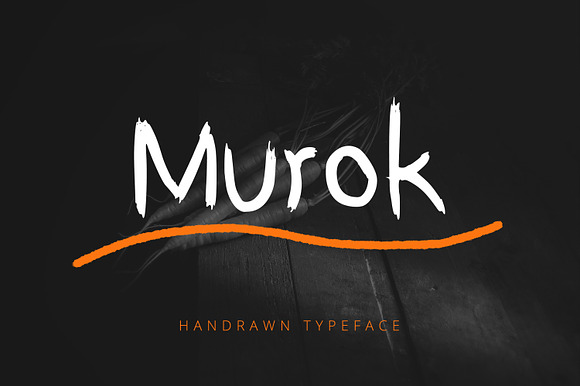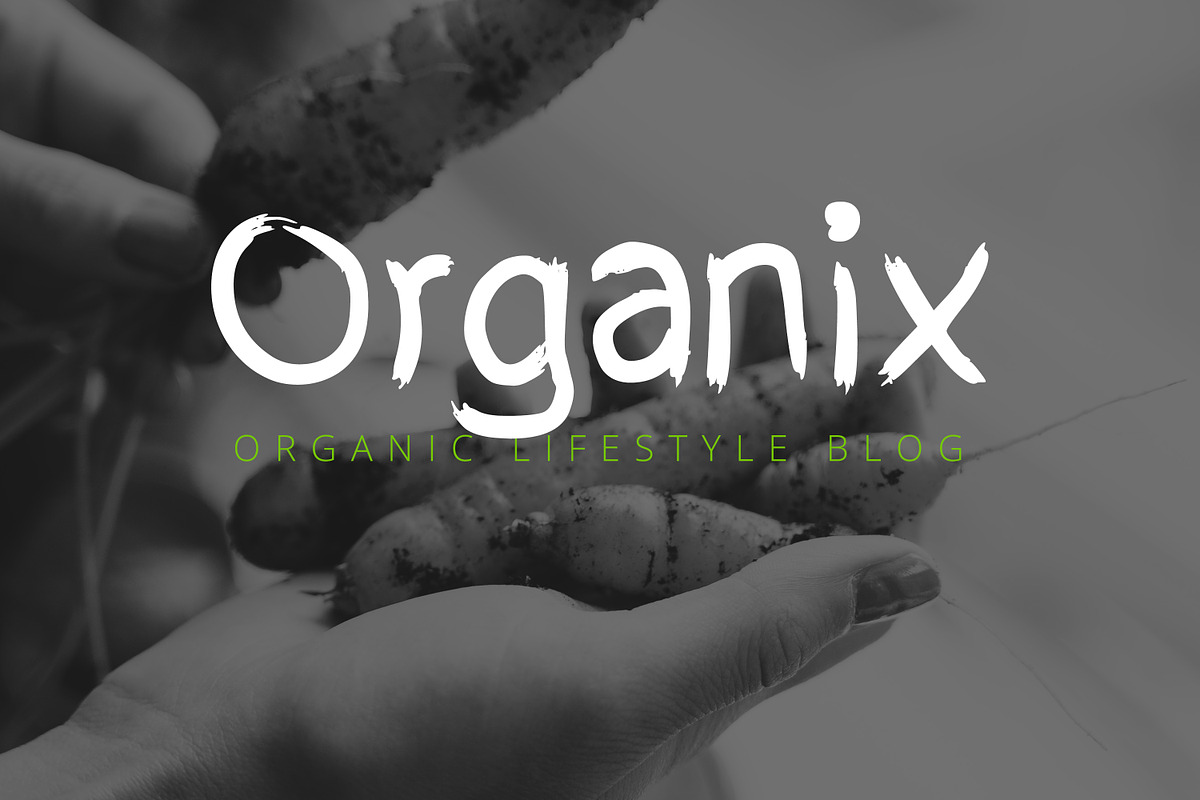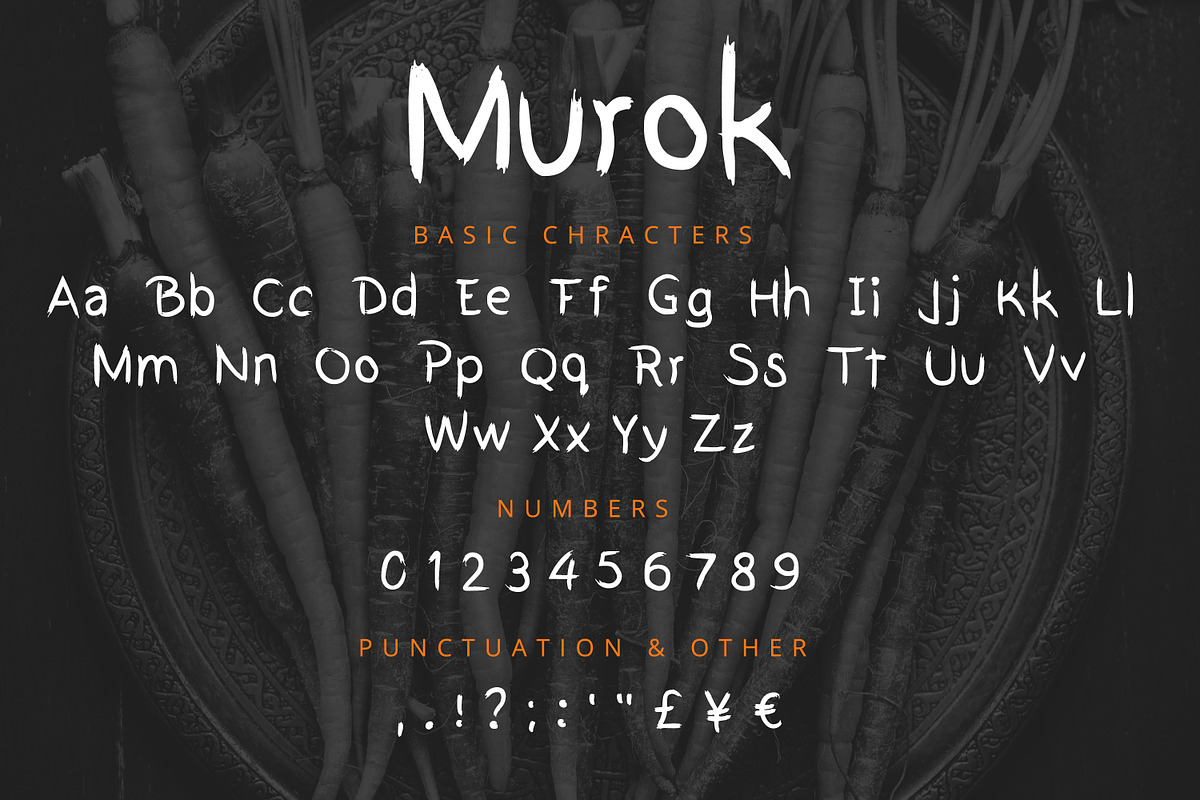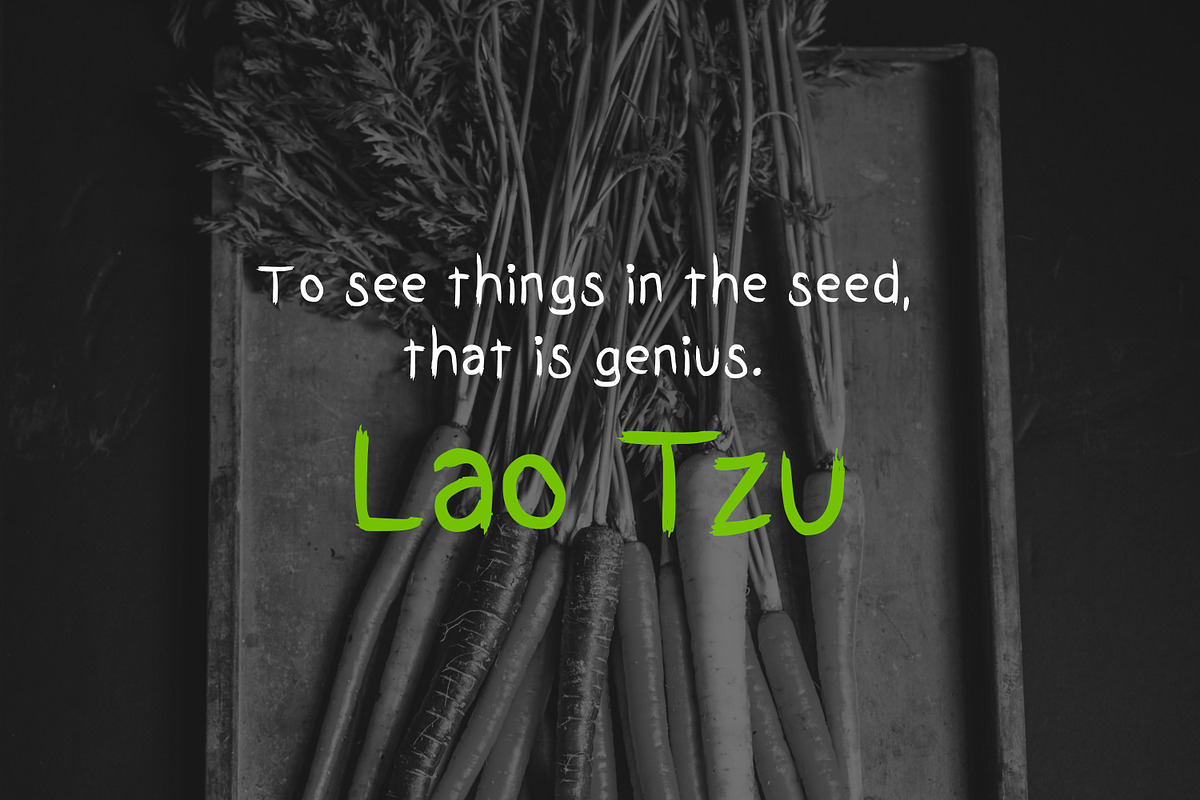
Murok Brush Font
Handwritten Font perfect for headings.
This fonts is perfect for: posters, headers, cards etc.
Letters + Numbers + Some Currency
Murok Brush Font by Meagan Wallace Designs fits naturally into Branding, posters, packaging, typography.